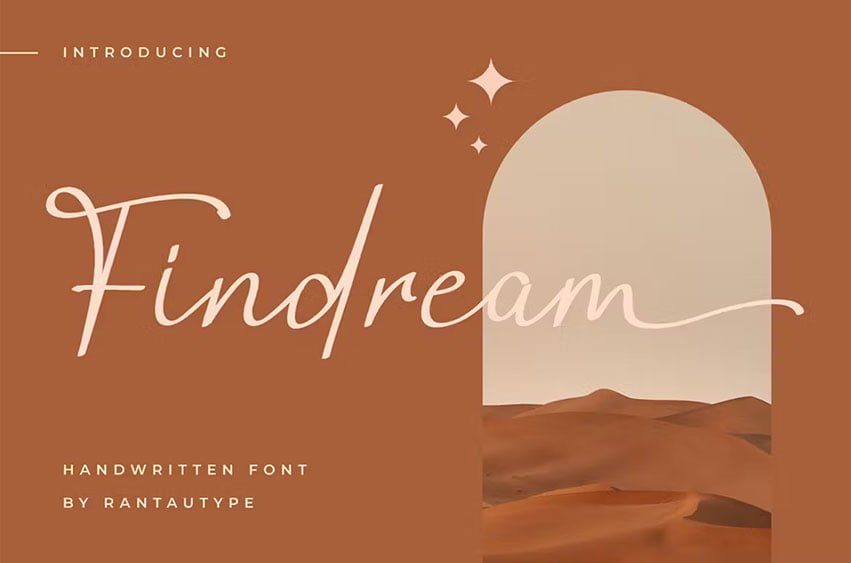
Findream Font We keep this font looking modern, classy, readable, stylish, catchy and easy to use. Findream is a great choice for watermark on photography, signature or signature logo design, quotes, album cover, business card and many other design project. Findream is here to make your work to high level!!!